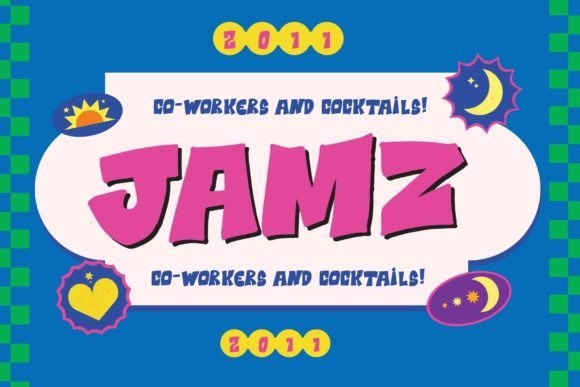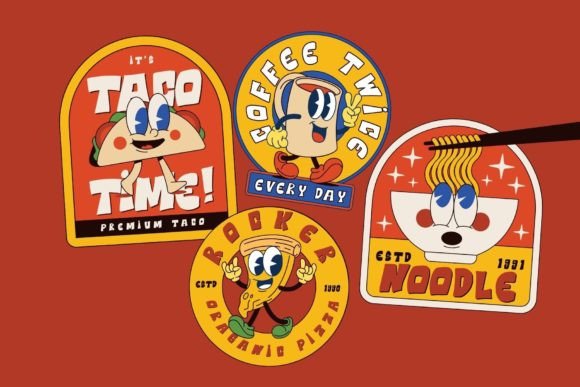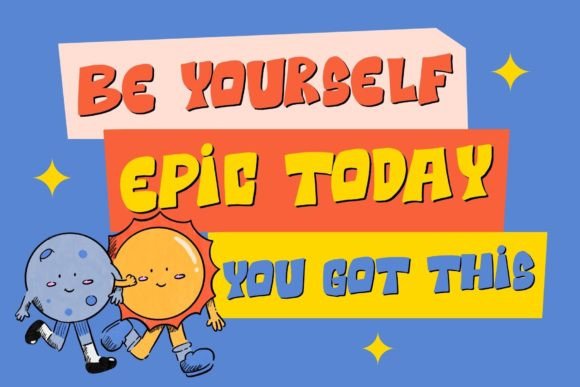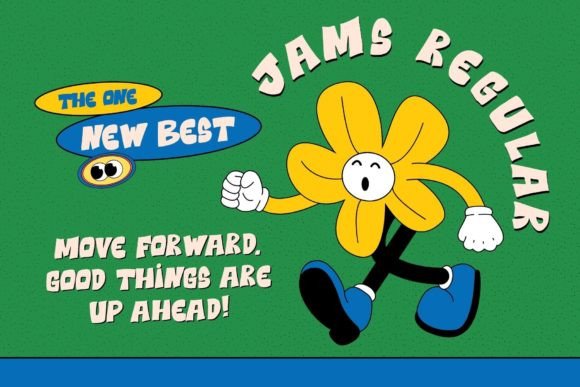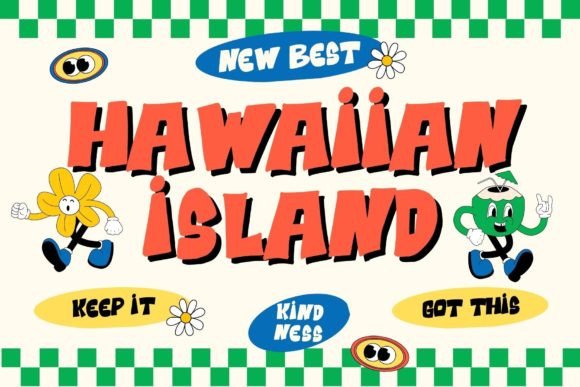
Unlocking the Art of Hand-Lettering with Jamz Font
We’ve all been there – staring at a blank canvas, trying to come up with the perfect quote or phrase to bring our design to life. The blank page can be intimidating, but what if you had a secret tool to give your work that extra oomph?
Enter Jamz Font, a stunning hand-painted typeface designed to help you create the look of custom hand-lettering with ease. This beautiful display font is perfect for adding a touch of personality to your designs, from quotes and posters to logos and print ads. Whether you’re a seasoned designer or just starting out, Jamz Font is a valuable asset to have in your toolkit.
Key Features of Jamz Font
- Font Family: Jamz Font is a sans-serif font family, designed to be highly legible and versatile.
- Size: The font family includes a range of weights from Light to Extra Bold, allowing for a variety of design applications.
- Resolution: Jamz Font is designed for use at high resolutions, making it suitable for digital displays and print materials.
- Unique Characteristics: Jamz Font features a distinctive rounded edge and a friendly, approachable feel, making it ideal for use in branding and advertising.
- Kerning and Ligatures: Jamz Font includes advanced kerning and ligature pairs, ensuring that text is set with precision and accuracy.
Designer Review: Jamz Font
Overall, I found Jamz Font to be a fun and energetic display font that can add a playful touch to any design project. ✨
- Unique character shapes and letterforms that make it stand out from more traditional fonts.
- High level of expressiveness, perfect for headings, titles, and other attention-grabbing text elements.
- Good legibility, even at larger font sizes.
However, there are some limitations to consider. ⚠️
- May not be suitable for body text due to its playful and energetic feel, which can be overwhelming in large quantities.
- Some letterforms can be quite loose and irregular, which may not be ideal for projects requiring a high level of precision.
- Lack of consistency in some of the font’s features, which can make it harder to use in certain design contexts.
Overall, I think Jamz Font is a great choice for designers looking to add some personality and flair to their projects. It’s perfect for titles, headings, and other attention-grabbing text elements, but may not be the best fit for body text or projects requiring a high level of precision.
For the most effective use of Jamz Font, use it for headings and titles to add a touch of playfulness and creativity to your design.
It’s also great for social media graphics, flyers, and posters where you want to grab attention with a bold and eye-catching font.
Remember to pair Jamz Font with a clean and simple font for body text to avoid overwhelming the reader.
Alternatives to Jamz Font
Bebas Neue is a modern sans-serif font with a unique, handwritten feel. It’s ideal for use in titles, headings, and other prominent text elements where you want to convey a sense of playfulness and creativity.
Compared to Jamz Font, Bebas Neue has a more refined and elegant look, making it suitable for a wider range of design applications. While Jamz Font has a more casual, handwritten feel, Bebas Neue is more versatile and can be used in both informal and formal contexts.
Great Vibes is a modern script font with a relaxed, casual feel. It’s perfect for use in titles, headings, and other text elements where you want to convey a sense of friendliness and approachability.
Compared to Jamz Font, Great Vibes has a more fluid, connected look, making it suitable for use in longer blocks of text. While Jamz Font is more bold and playful, Great Vibes is more laid-back and easy to read.
Montserrat is a geometric sans-serif font with a modern, urban feel. It’s ideal for use in titles, headings, and other prominent text elements where you want to convey a sense of sophistication and elegance.
What is the recommended font size for Jamz Font?
The recommended font size for Jamz Font varies depending on the context and application. For body text, we recommend using a font size between 12px and 14px. For headings and titles, you can use larger font sizes, such as 18px, 24px, or 36px. It’s essential to experiment with different font sizes to find the optimal size for your specific project.